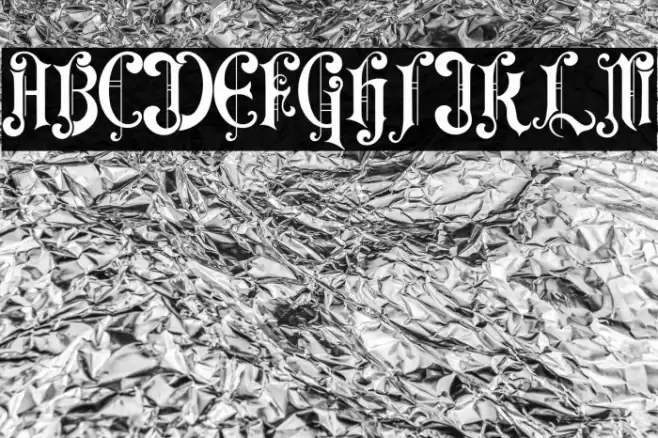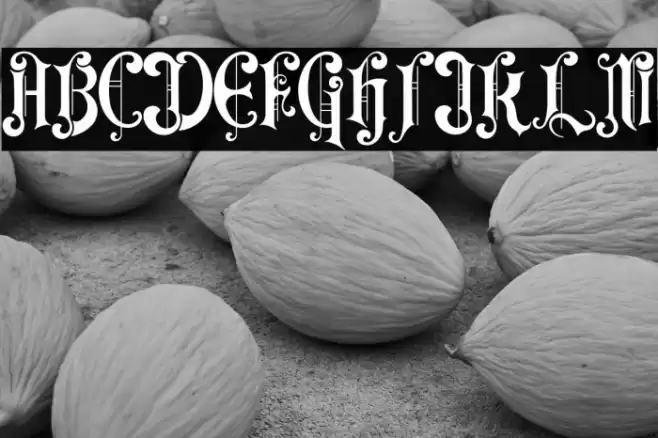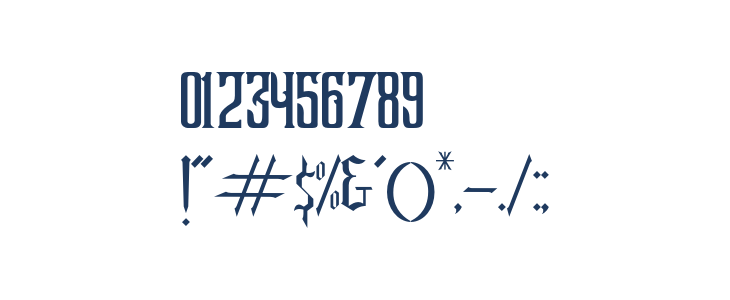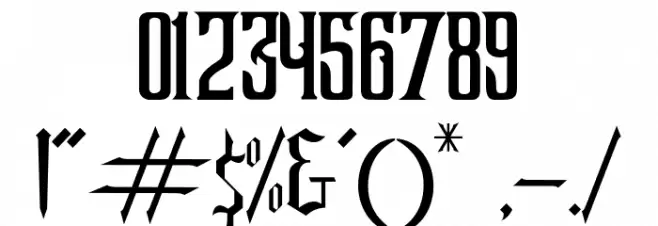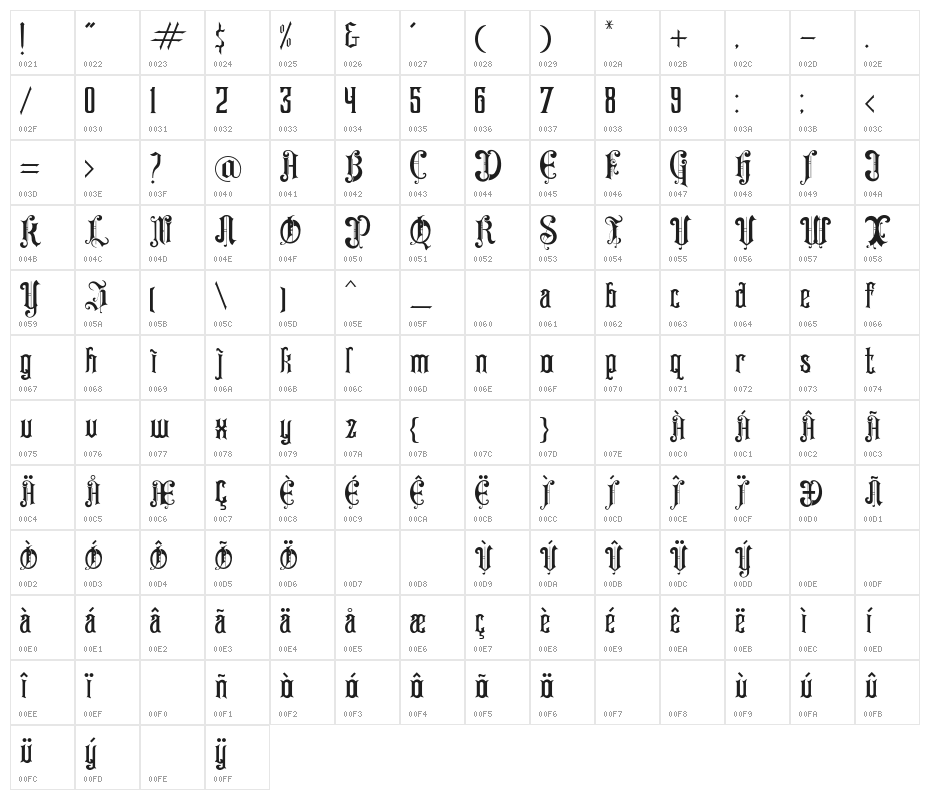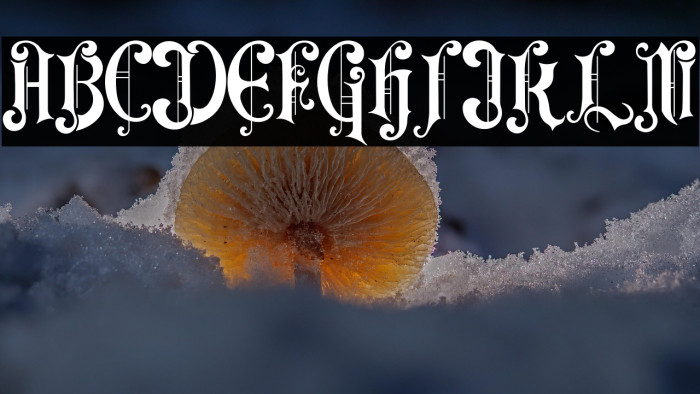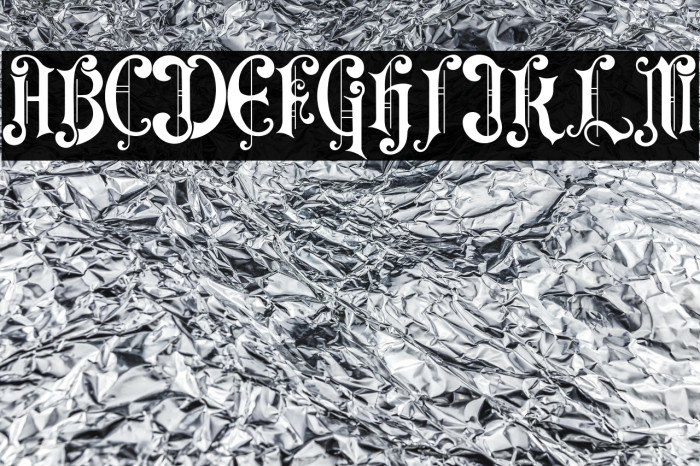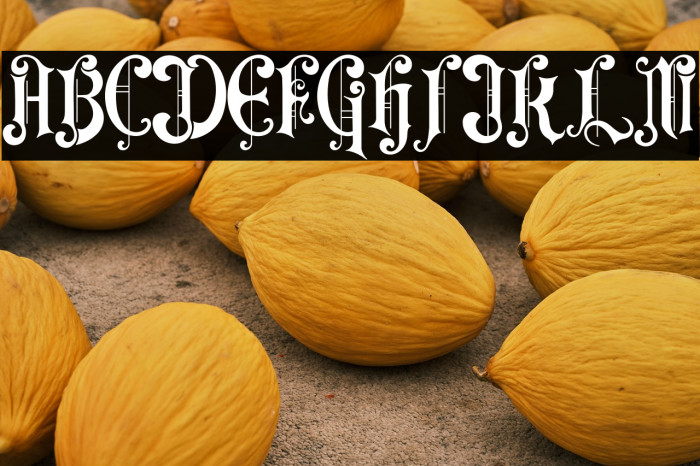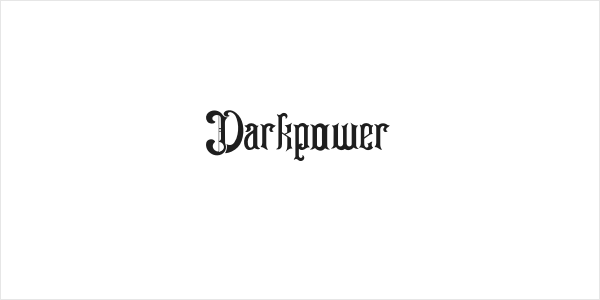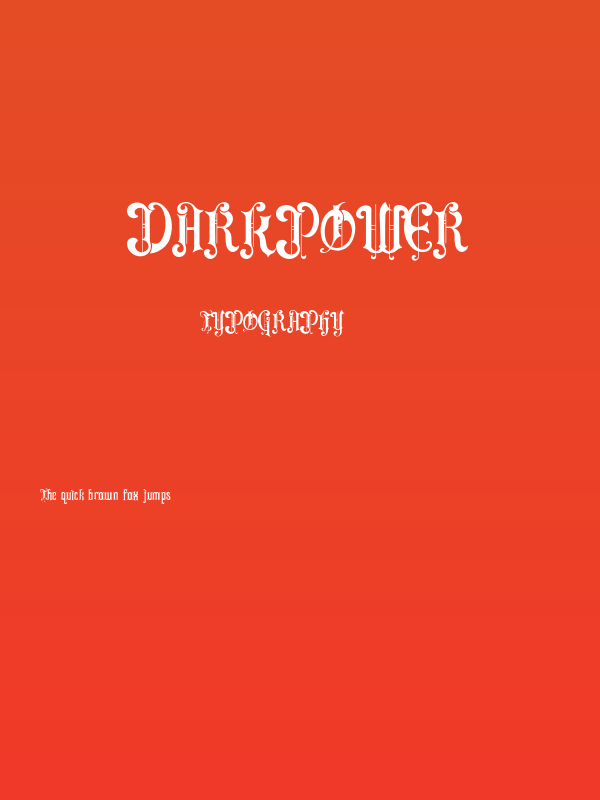
Darkpower Font
Darkpower Description
This font features a bold and intricate design, reminiscent of traditional Blackletter styles. The characters are adorned with elaborate flourishes and sharp, angular strokes that give it a dramatic and gothic appearance. The uppercase letters are particularly ornate, with extended serifs and decorative elements that enhance their visual impact. The lowercase letters maintain the same level of detail, ensuring consistency throughout the typeface. Numbers and special characters are designed to match the overall aesthetic, making this font suitable for projects that require a strong and distinctive look.
A bold, intricate Blackletter-style font with dramatic flourishes from Uncategorized fonts.
- Font: Darkpower
- Proposed Projects: Ideal for tattoo designs, gothic-themed posters, album covers, and branding that requires a strong, historical aesthetic.
- Overall Style: Gothic, Decorative